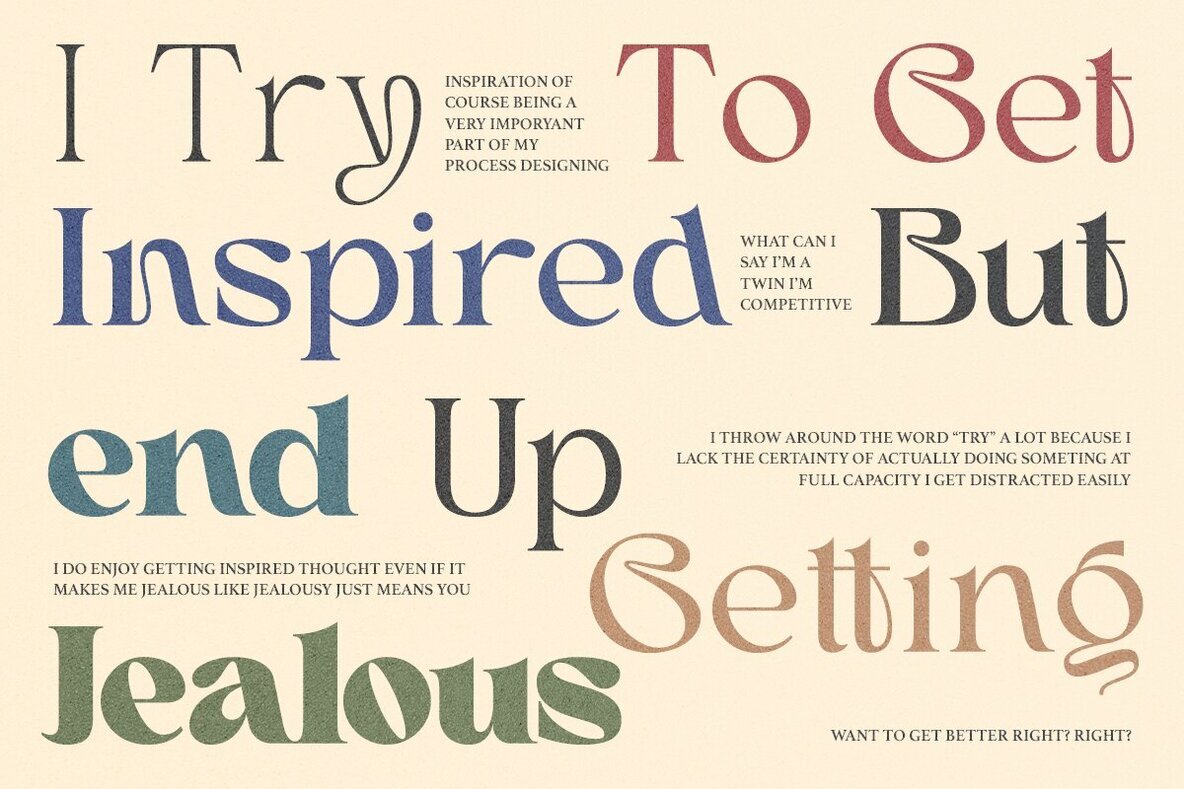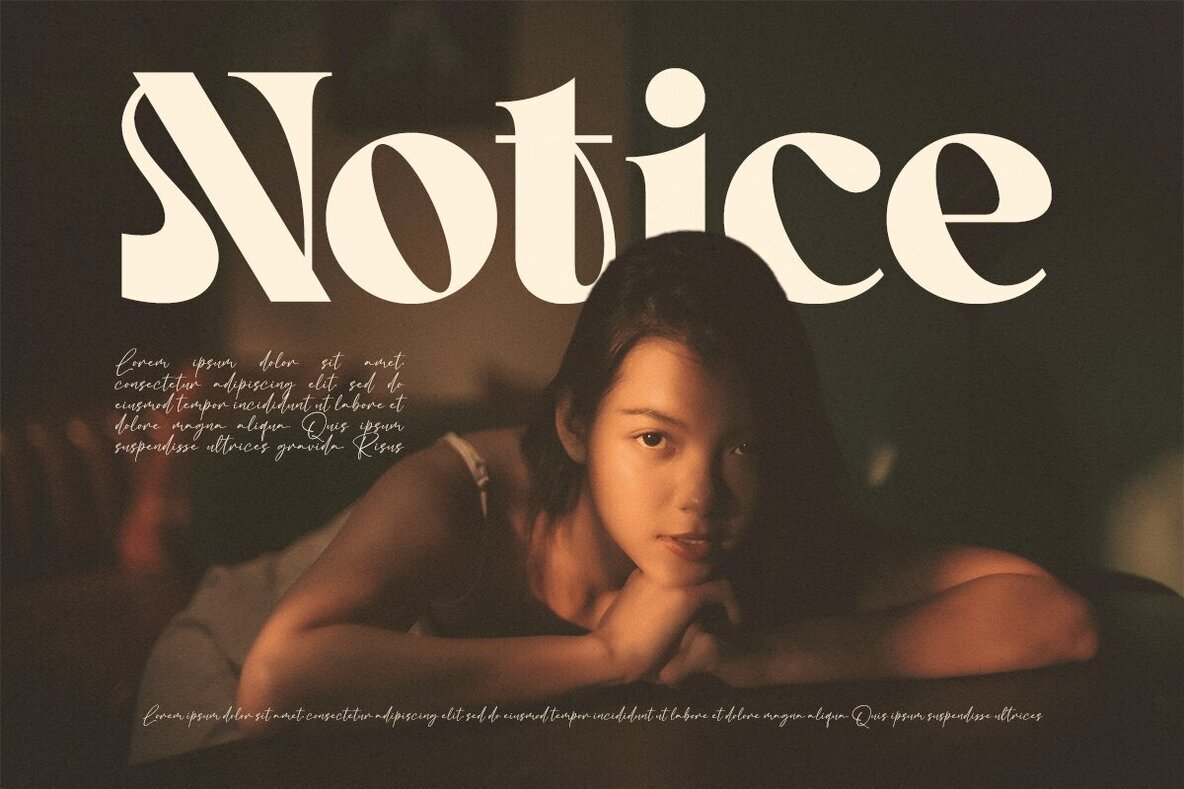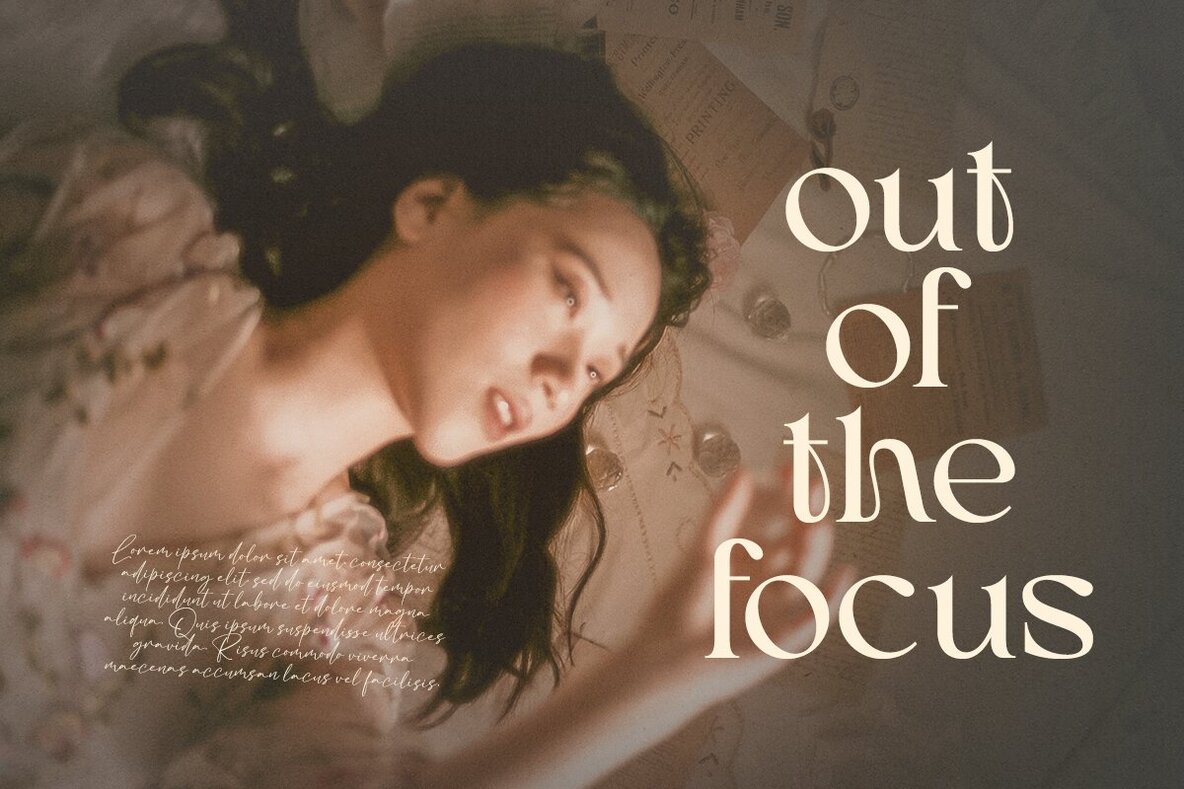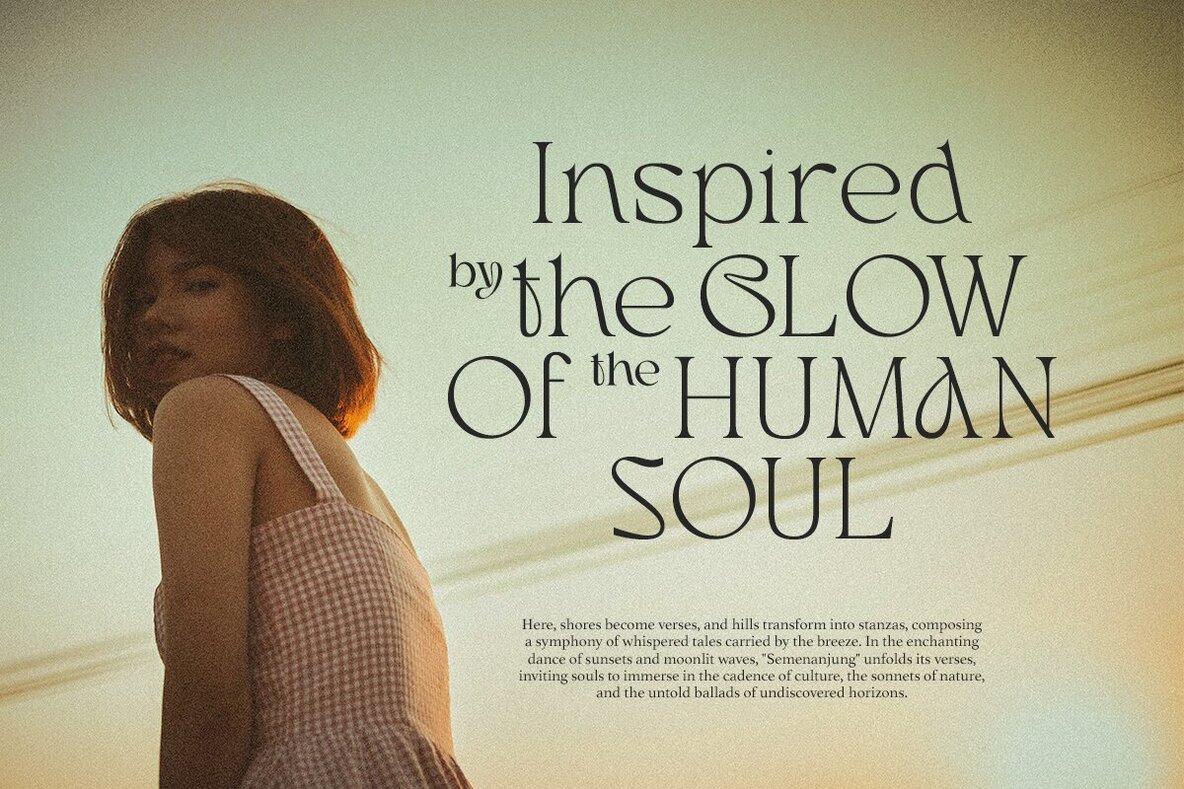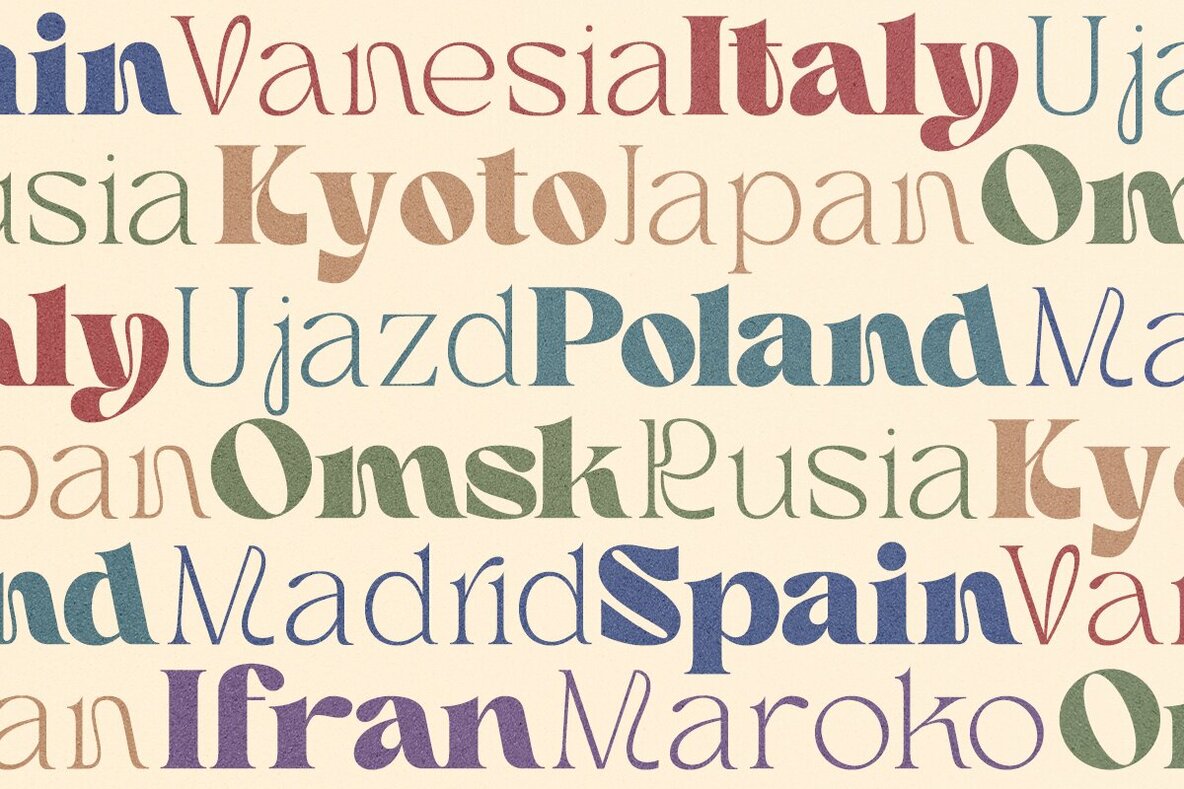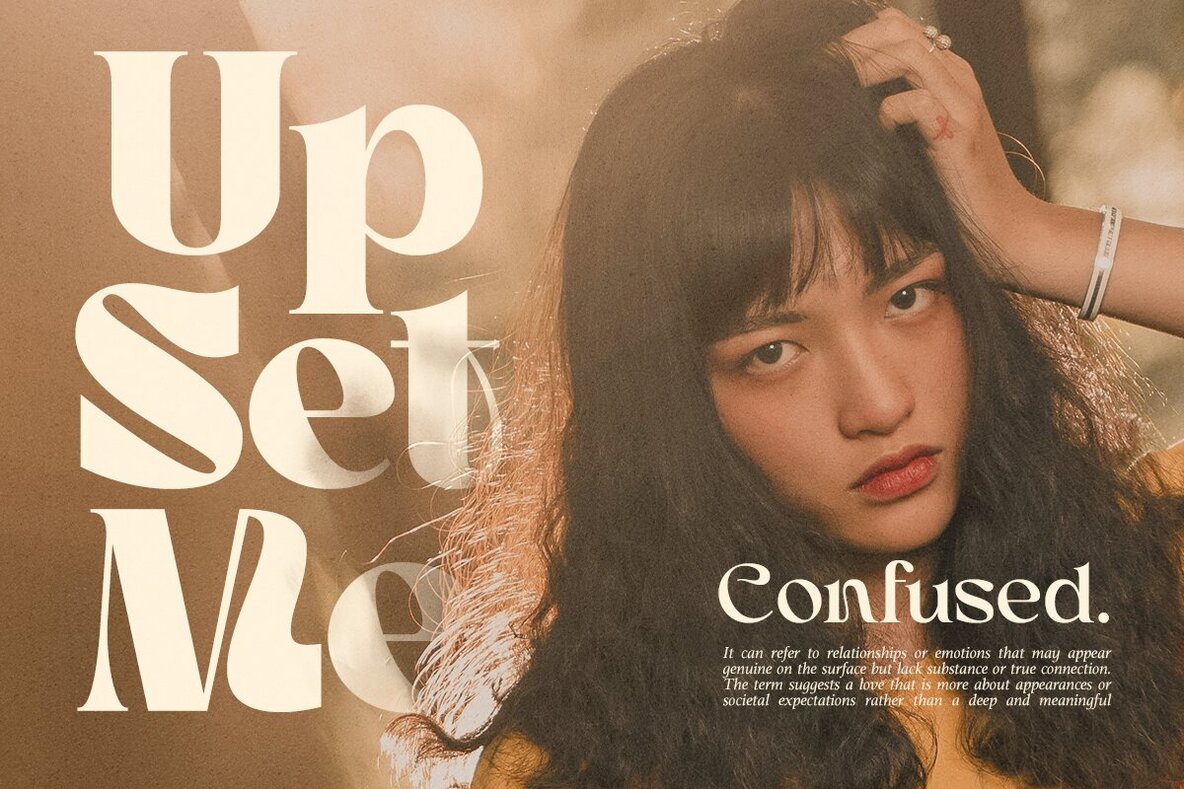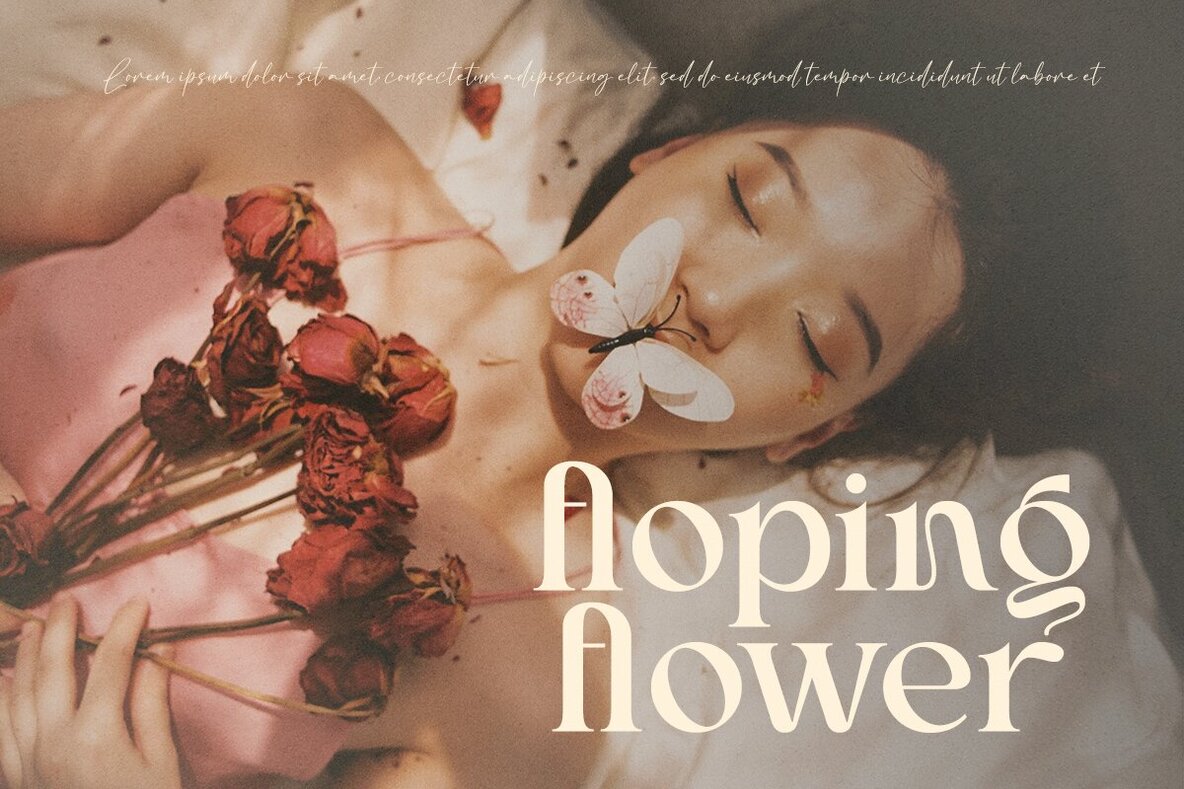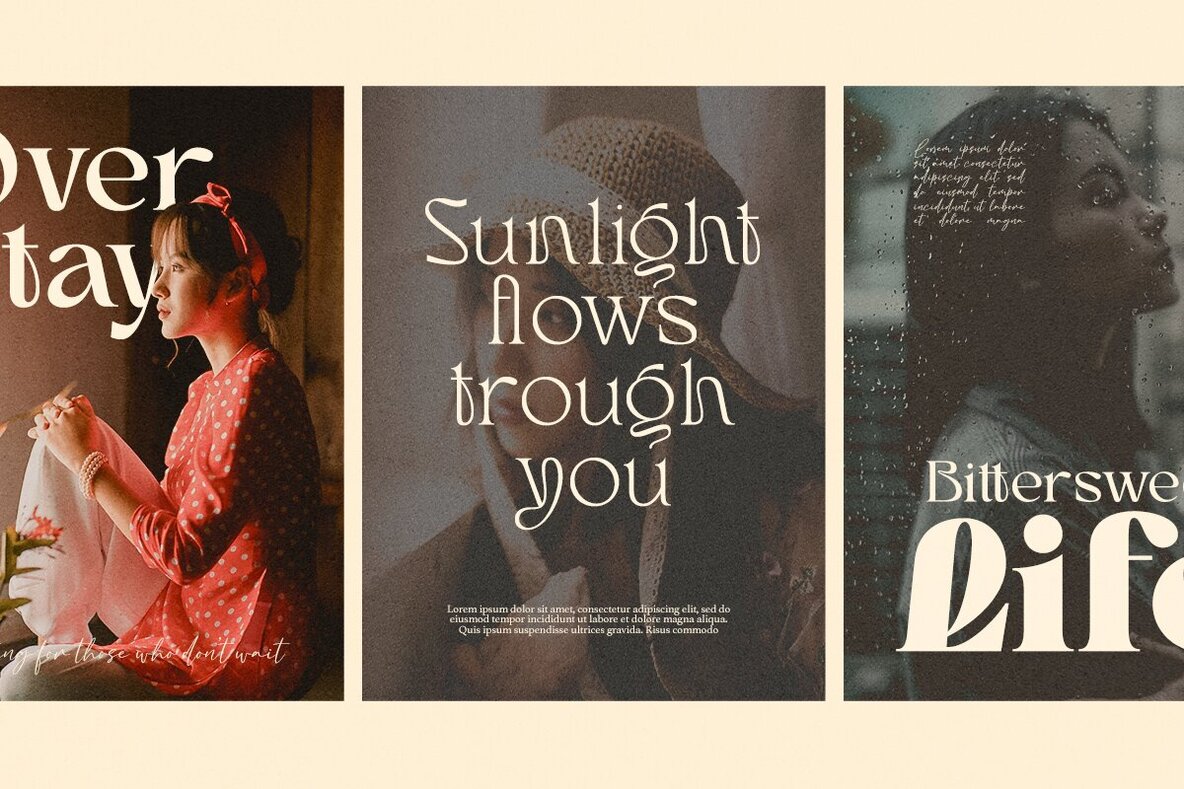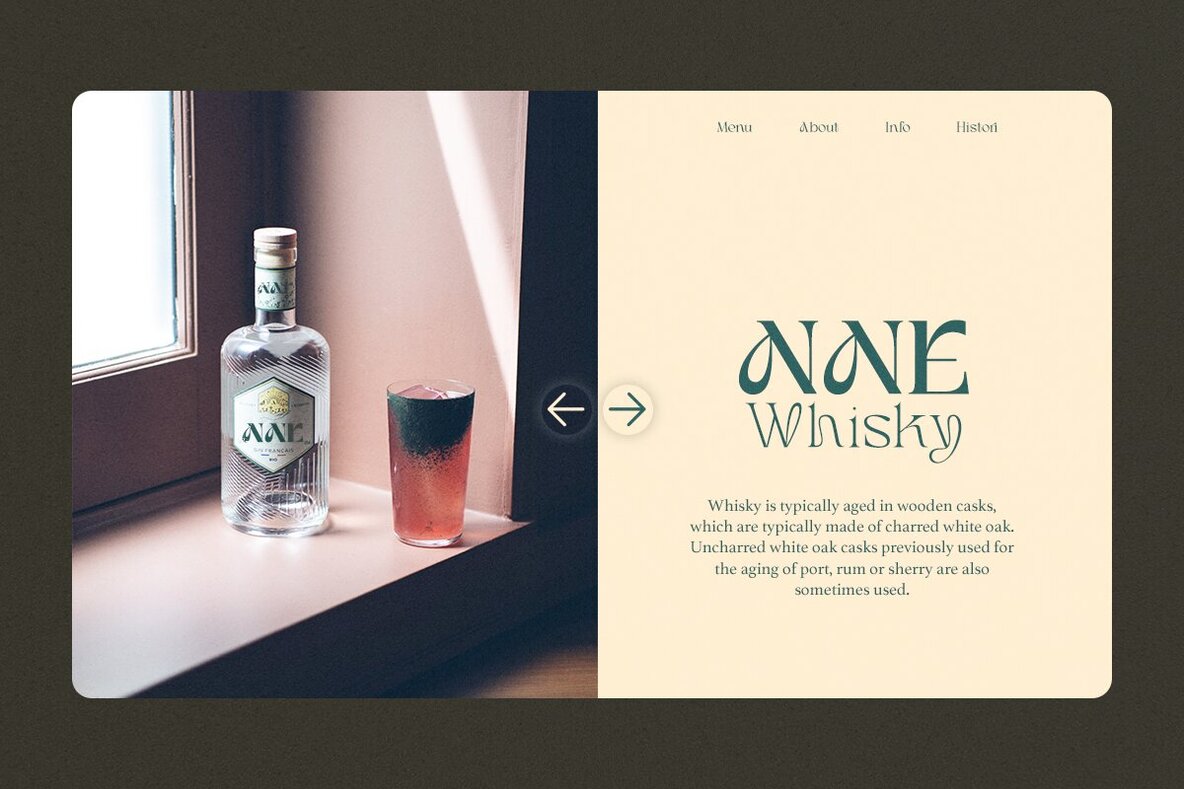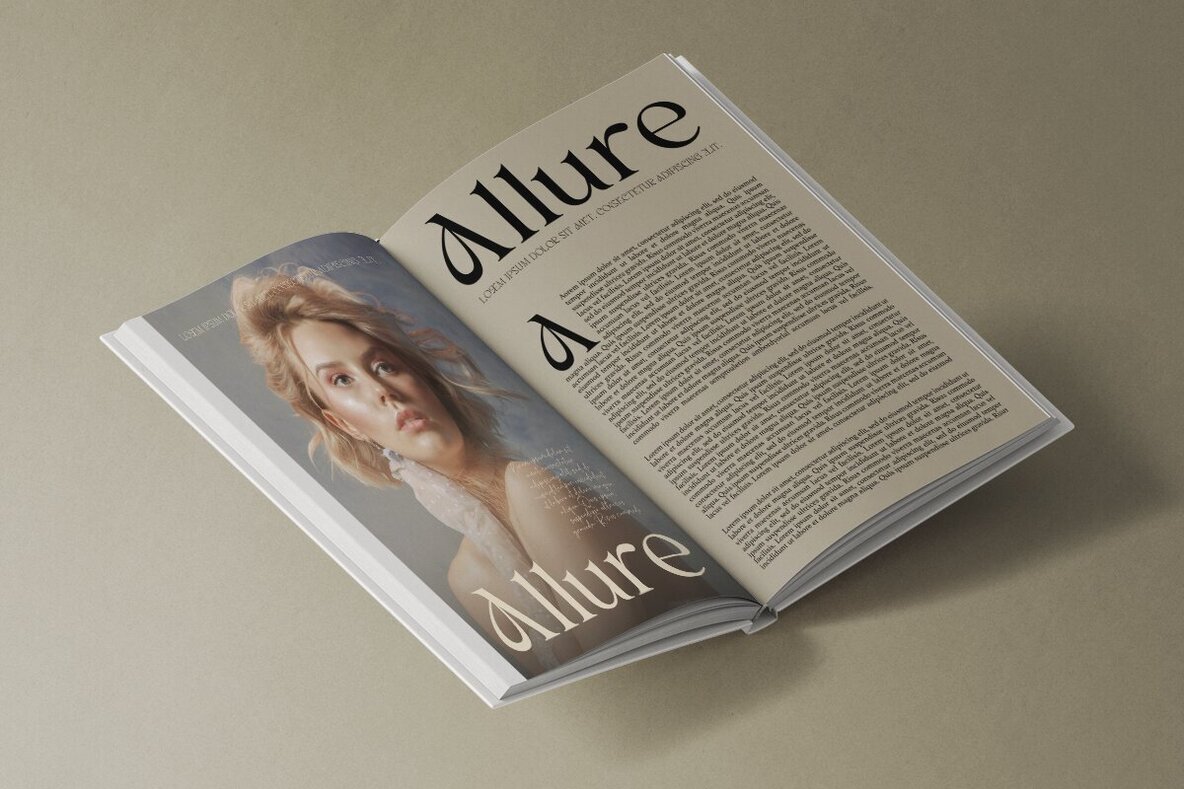
Anthy Font
Introducing Anthy – A brand display serif with a different letter shape than usual! Anthy is a modern serif family featuring tightly-spaced serifs reminiscent of the 80s and 90s, making a stylish comeback. We aimed to create the perfect font for you too! With 5 style families (Thin to Extra Bold) and unique ligatures, Anthy suitable for short text and long words such as headlines, logos, UI design, magazine text, product descriptions, and other design needs What's Included? Language Support: Danish, English, Estonian, Filipino, Finnish, French, Friulian, Galician, German, Gusii, Indonesian, Irish, Italian, Luxembourgish, Norwegian Bokmål, Norwegian Nynorsk, Nyankole, Oromo, Portuguese, Romansh, Rombo, Spanish, Swedish, Swiss-German, Uzbek (Latin)